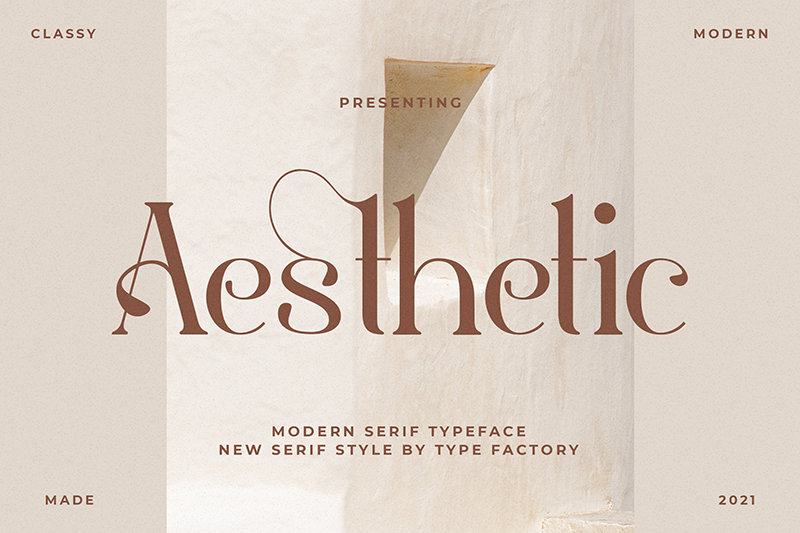
Font name: | Aesthetic |
Author: | Type Factory |
Note by Type Factory | |
Aesthetic is a modern serif font, that features a simple and minimalist feel. This font will brighten up each of your designs. The only limit is your imagination! Full Version Download Here : https://typefactory.co/product/aestetic-modern-serif-font/ |